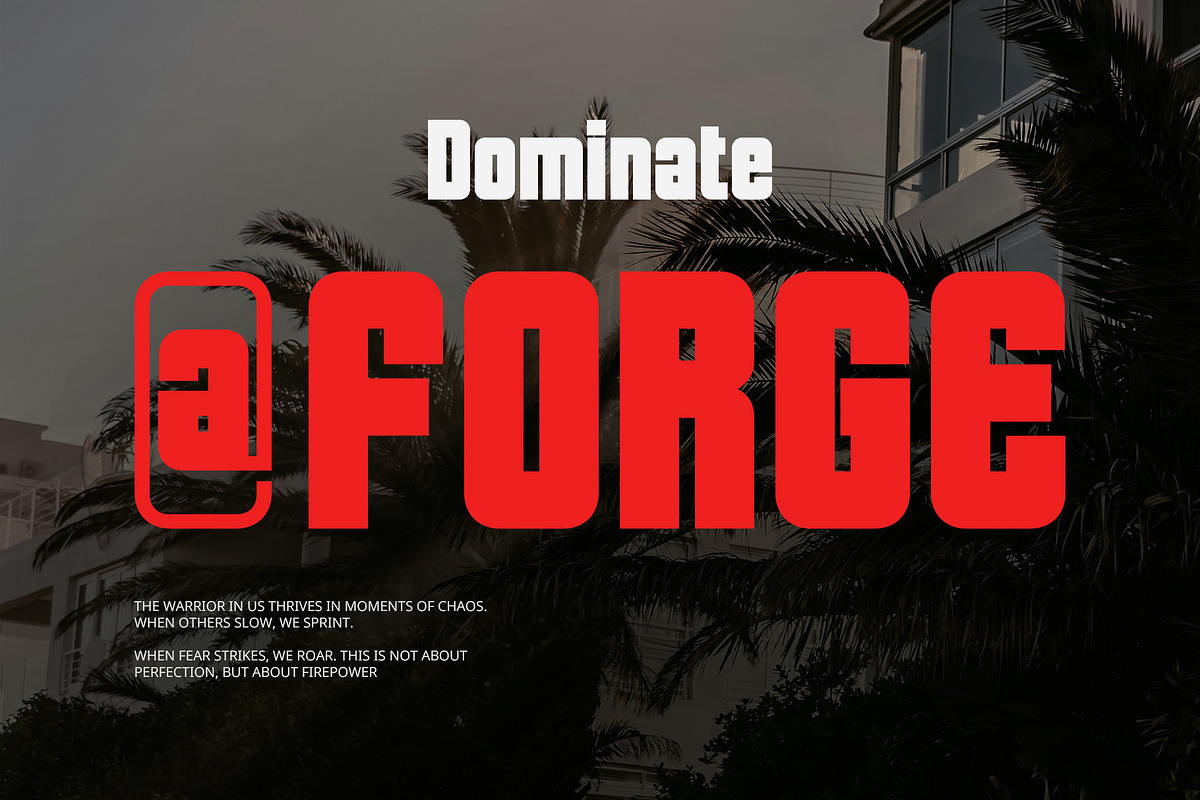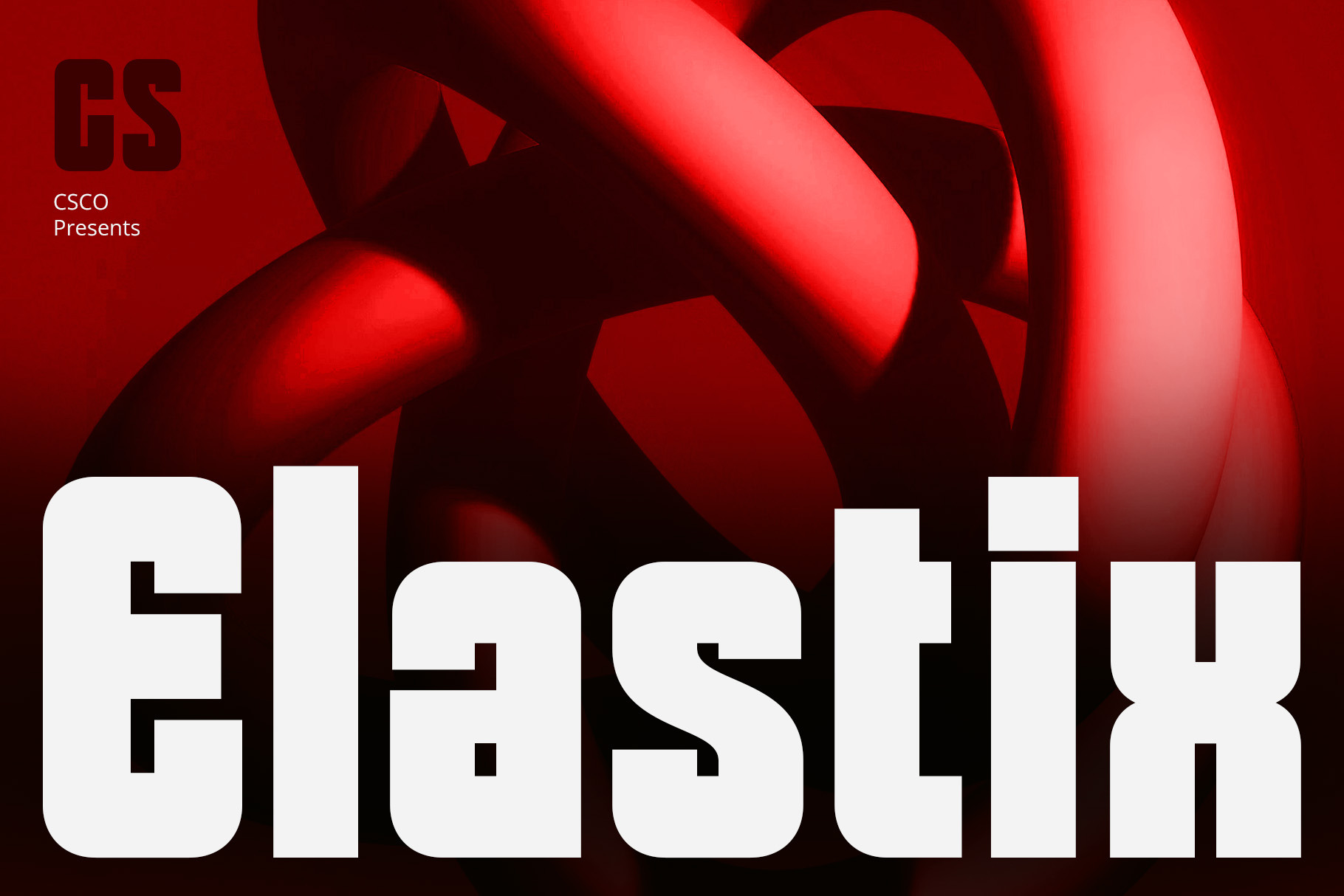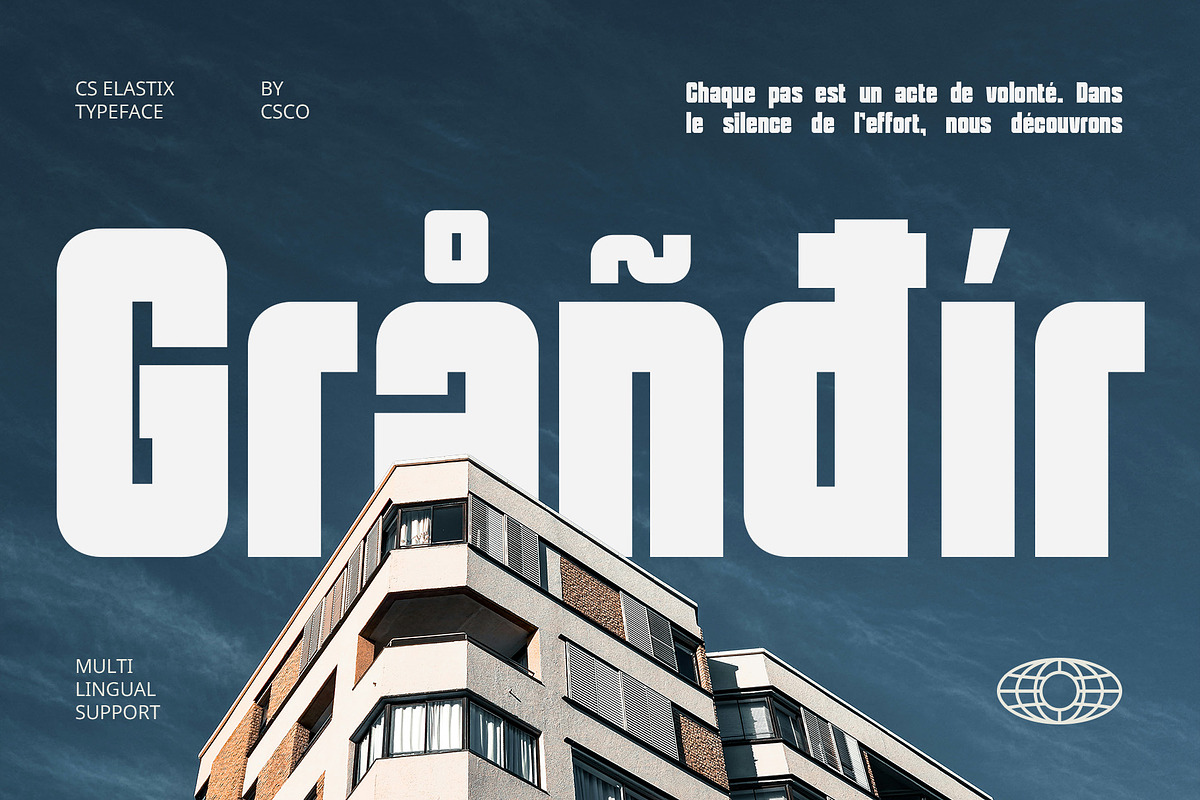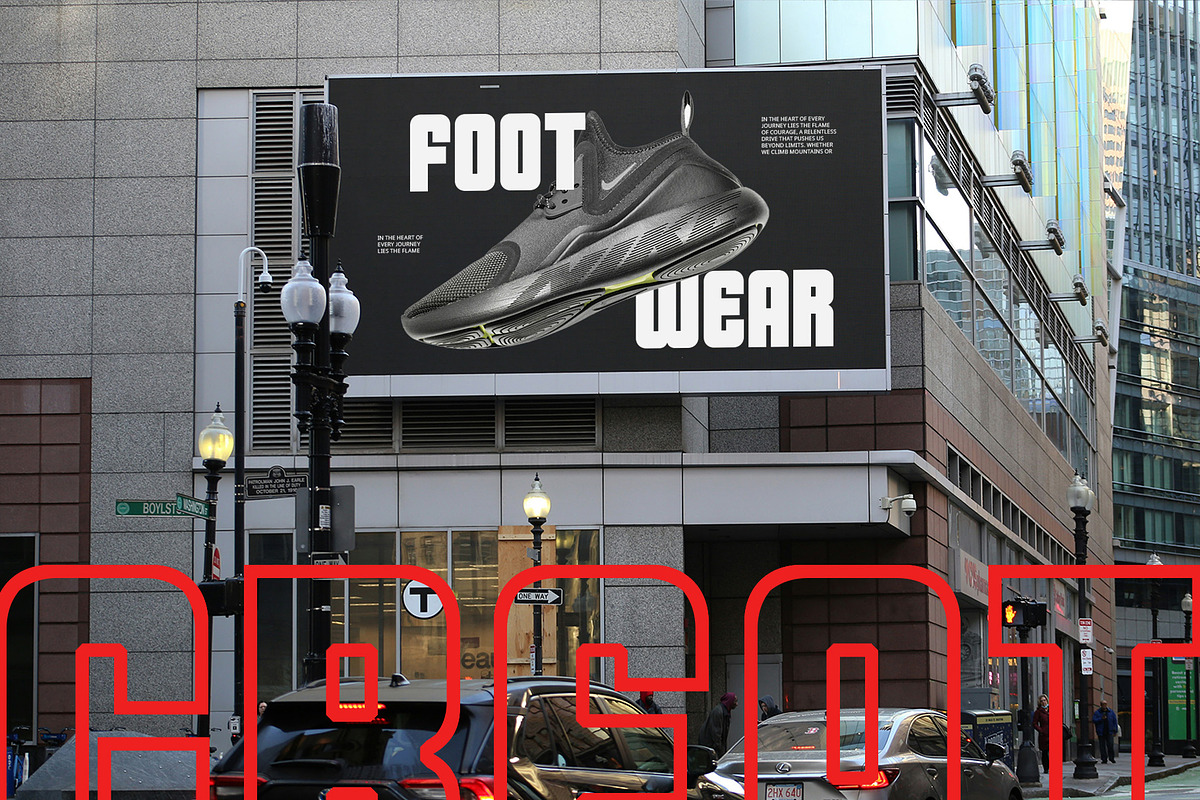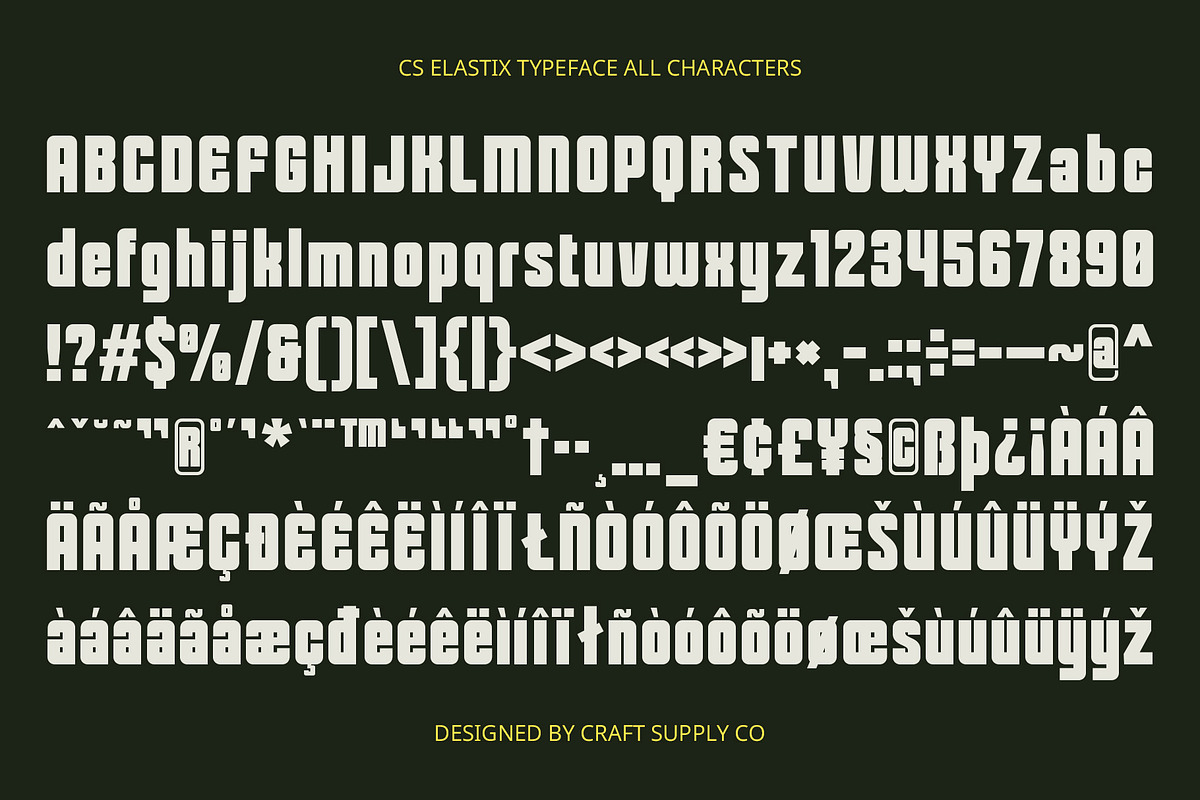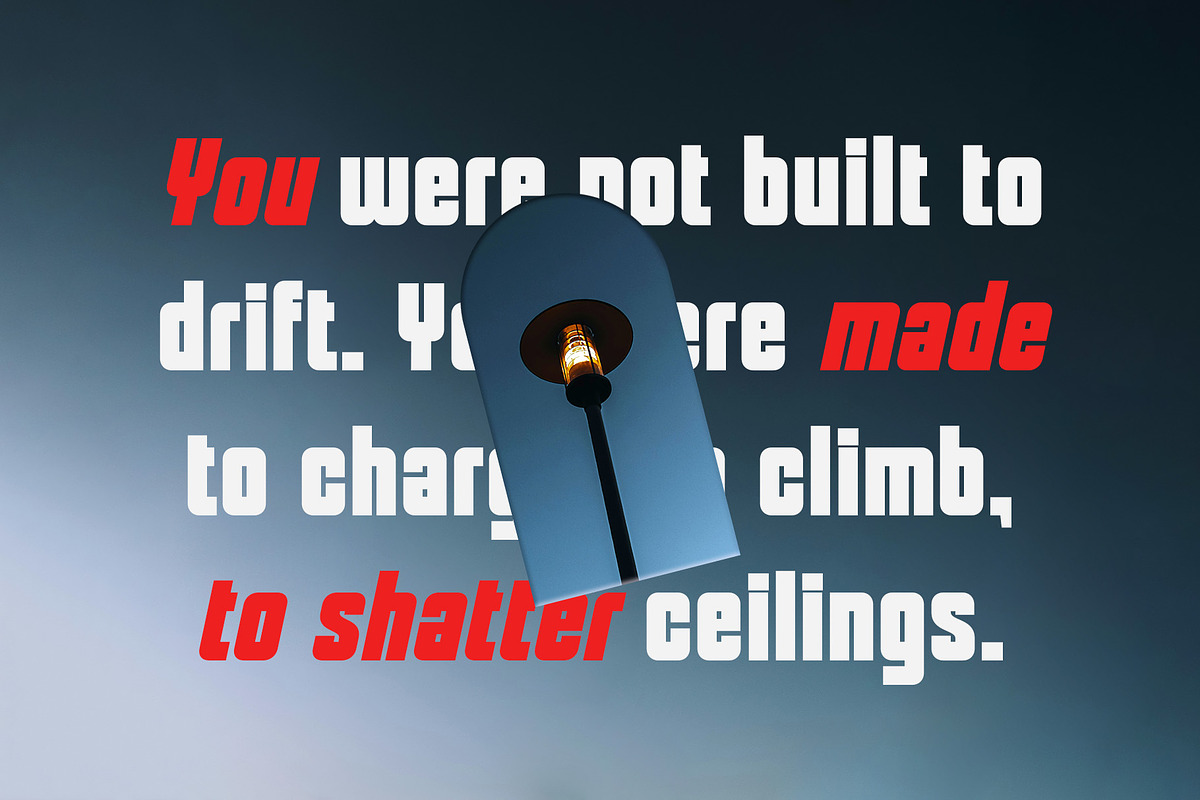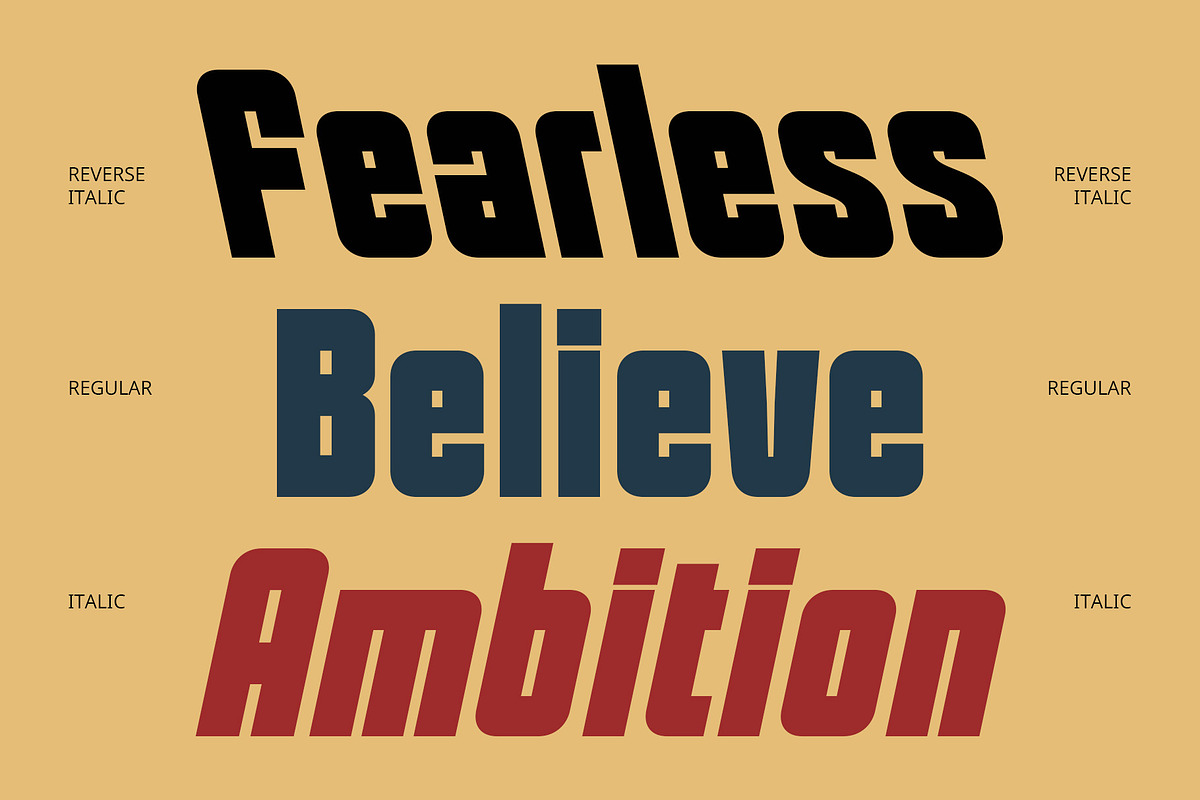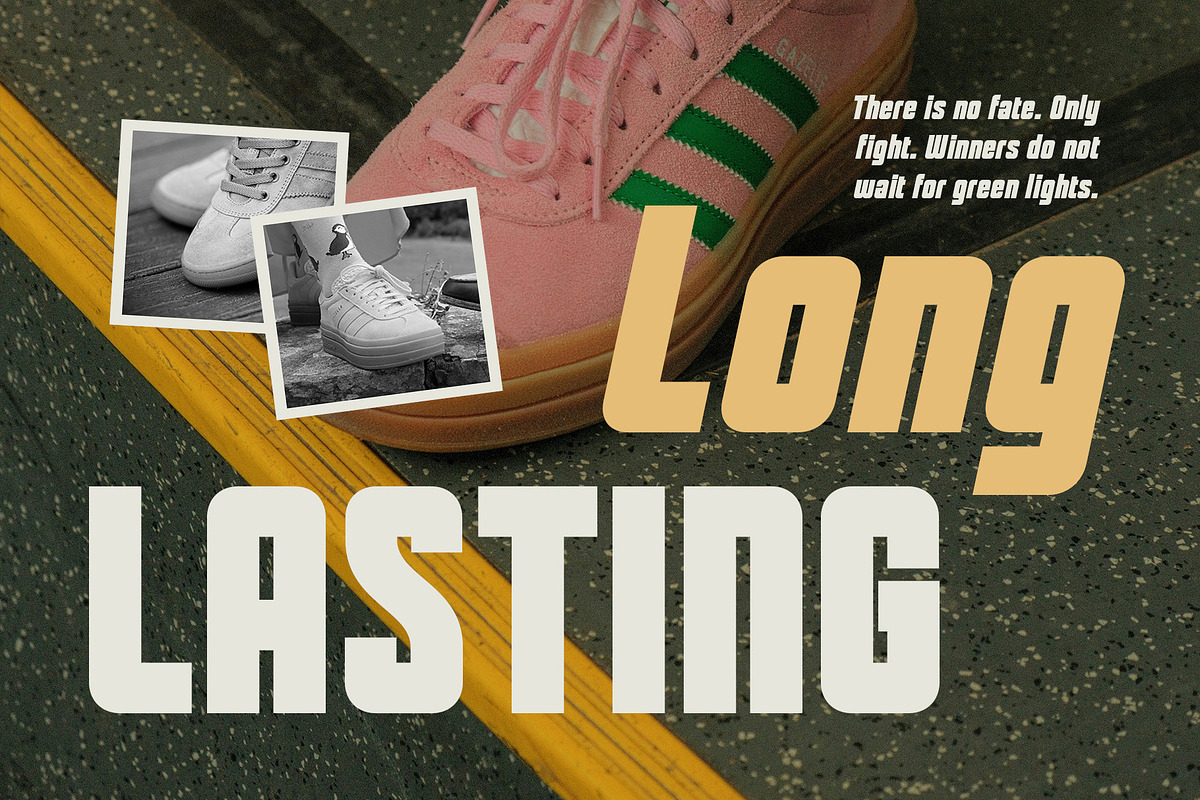
CS Elastix – Bold Font
CS Elastix – Bold Font: Power in Every Letter
Bold Design with Modern Precision CS Elastix is a modern sans serif font built with bold, striking letterforms that command attention. Its strong, clean lines reflect confidence and clarity, offering a powerful voice for contemporary design. The absence of serifs reinforces its streamlined, no-nonsense aesthetic, making it ideal for modern branding and impactful layouts.
Assertive Presence for High Visibility The bold weight of CS Elastix creates an assertive presence that instantly stands out. Whether used in headlines, posters, or digital banners, it delivers messages with unmatched clarity and strength—perfect for designs that demand to be noticed.
Professional Yet Full of Character While bold and direct, CS Elastix retains a sense of balance and professionalism. It’s versatile enough for both corporate identities and creative expressions, adding personality without compromising structure.
Ideal for Clear, Confident Communication Perfect for designers looking to convey clarity, power, and sophistication, CS Elastix is a go-to choice for bold modern branding. Its assertive design, clean appearance, and dependable legibility make it suitable for a wide range of applications—from packaging and signage to motion graphics and social media content. With CS Elastix, your message won’t just be read—it will be remembered.
- CS Elastix Regular
- CS Elastix Italic
- CS Elastix Reverse Italic